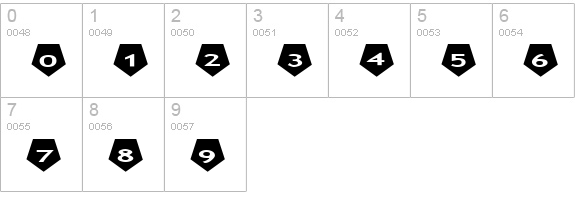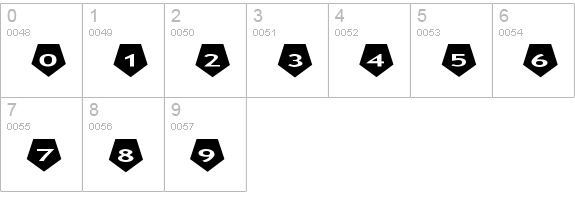
AlphaShapes Pentagons 2 font is a stunning display typeface that features intricate and geometric pentagon shapes. This unique font is perfect for creating eye-catching designs with a modern and dynamic flair. The sharp edges and clean lines of the pentagons give this font a contemporary and edgy look that is sure to make your projects stand out. What makes AlphaShapes Pentagons 2 font even more appealing is that it is available for free download at FontsMarket.com. This means you can easily access this versatile font and use it in your personal or commercial projects without any cost. Whether you are designing a logo, poster, or website, AlphaShapes Pentagons 2 font offers endless possibilities to unleash your creativity. Don't miss out on this amazing opportunity to enhance your designs with this exceptional font!